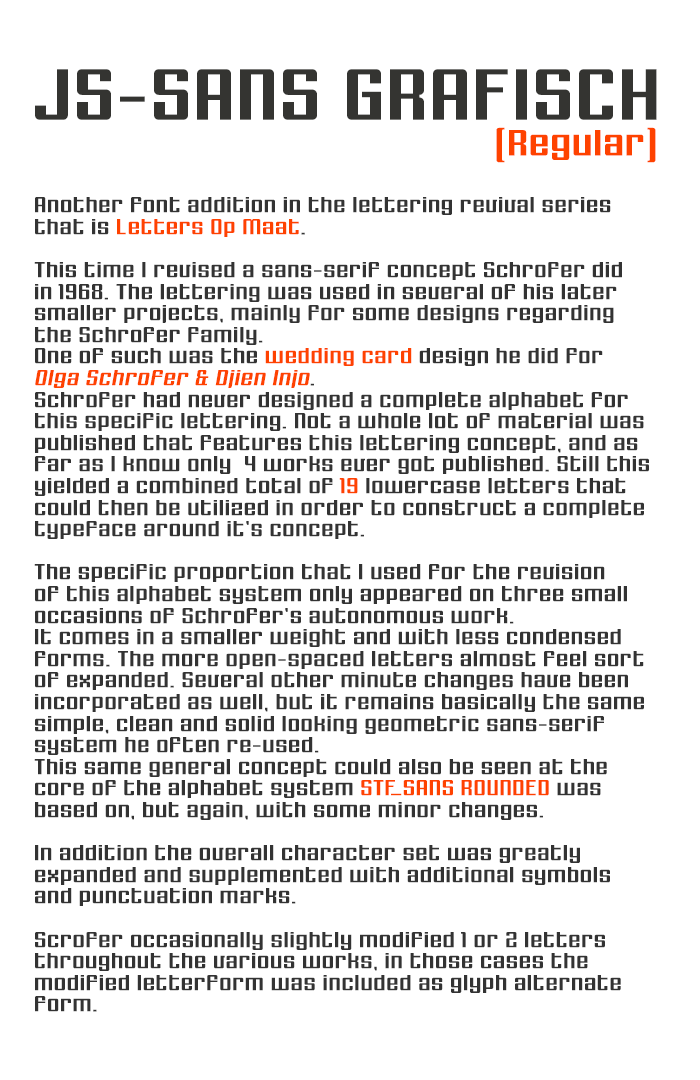
• JS-SANS GRAFISCH (Regular) ― Geometric Sans-Serif
Another font addition to the ever evolving and growing collection of revivals and inspired works called LETTERS OP MAAT, a project celebrating and trying to recreate the typographic contributions originally designed by Dutch graphic designer Jurriaan Schrofer.
This time I did a revival  based on a sans-serif lettering concept Schrofer did in 1968. The lettering was used in several of his later smaller projects, mainly for some design work regarding the Schrofer family. One of such was the wedding card he designed for Olga Schrofer & Djien Injo. Schrofer had never designed a complete alphabet for this specific lettering, and all the gathered resource material I was able to collect ( 1, 2, 3, 4 ) still yielded a combined total of 19 different lowercase letters "acdefghijlnoprstuwy"
Anyway, by the looks of it we can asume that this derived from or eventually had led to another one of his alphabet systems that came around that same time. This was one of his alphabet systems that he developed into a complete typeface. First appearance back in 1968 on Olga & Djien's wedding card. Later a slight modified variation of that same sans-serif system was used for the Dutch 1969 postage stamp design that celebrated the 50th anniversary of the 1919 International Workers' Organization. Several more instances would later follow, But the best and most complete preview of this sans-serif concept is probably seen on the red / white alphabet sample composition he did. Here a semi-bold version was completed to a full lowercase (a-z) alphabet set and small caps figures (no symbols or punctuation marks)
This particular alphabet system eventually saw extensive use, and can be seen in many of his work, ranging from book designs and brochures all the way to postage-stamps. So there is no shortage of resource material on this alphabet system.
Over the course of its existence the alphabet was constantly evolving, and Schrofer kept expanding the system with additional new weights and slight variations. But during his time with Mouton & Co. the concept basics for this sans system became one of his lettering workhorses, and saw widespread application.
Schrofer made several attempts to create complete typefaces, but this was never his goal. "Is it necessary.." he wrote, "To make complete alphabets with upper- and lowercase, figures, diacritics and seriously adorned with a name, when aim is merely a formal investigation into basic recipes?"
Schrofer's domain was never the design of typographic alphabets to be used by other designers. In addition, the lack of any naming for its alphabet systems and lettering-concepts can sometimes make it difficult to tell things apart, or instead group them into several larger font families, consisting of multiple weights and -or slightly modified style variations.
This specific proportion that I used for the revival of the alphabet system only appeared in three small occasions of Schrofer's autonomous works.
It basically is the same simple, clean, but solid looking geometric sans-serif system he often reused. It is also the same general concept for the alphabet system STF_SANS ROUNDED was based upon, but with some minor changes.
This variation comes in a smaller weight and less condensed form, more open-spaced letters that almost feel expanded. The medium contrast on its vertical axis remains. In addition the overall character set was greatly extended as well as several other minute changes that were incorporated.